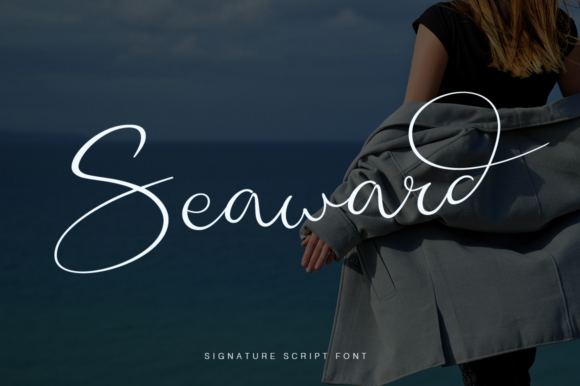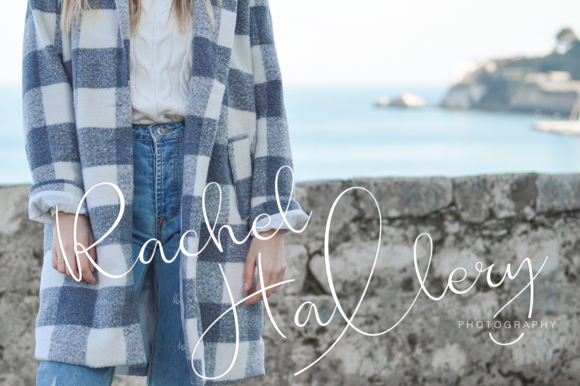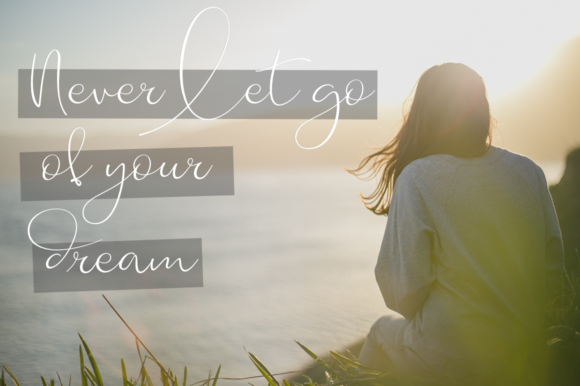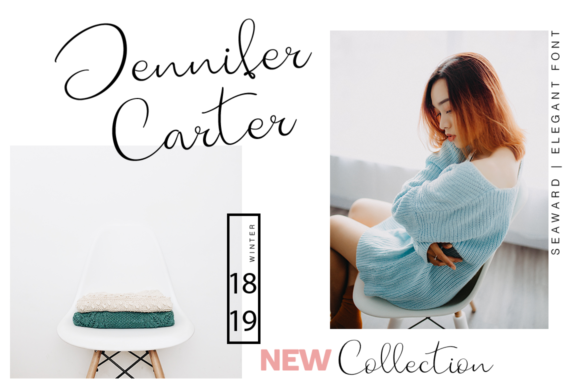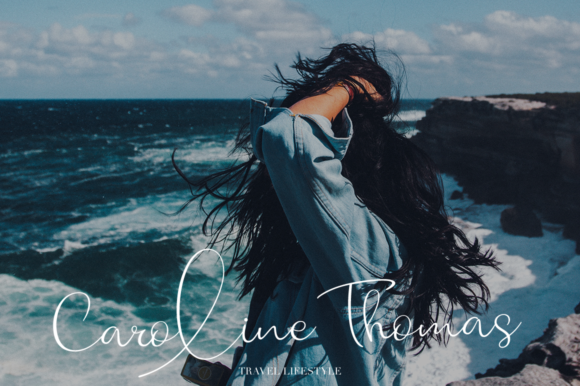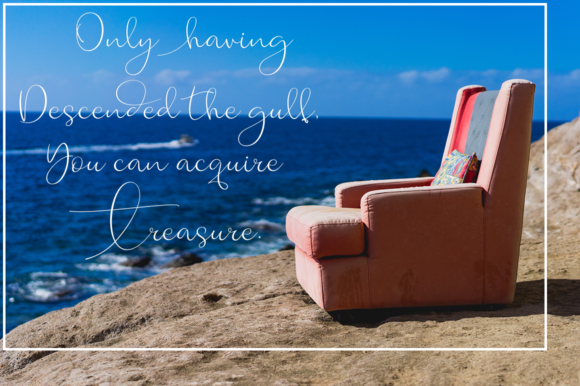
Seaward Font
About Seaward Font
The Seaward is a new, fresh, handmade signature font. It’s perfect for branding and decorating any project that needs an elegant touch.